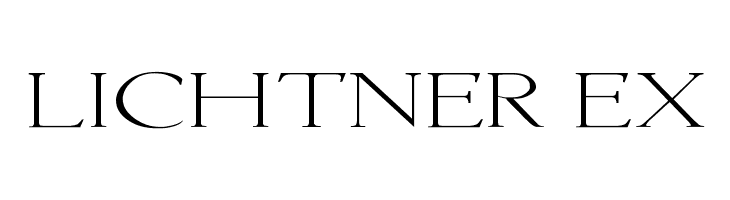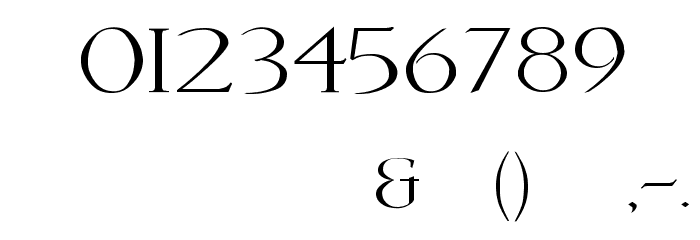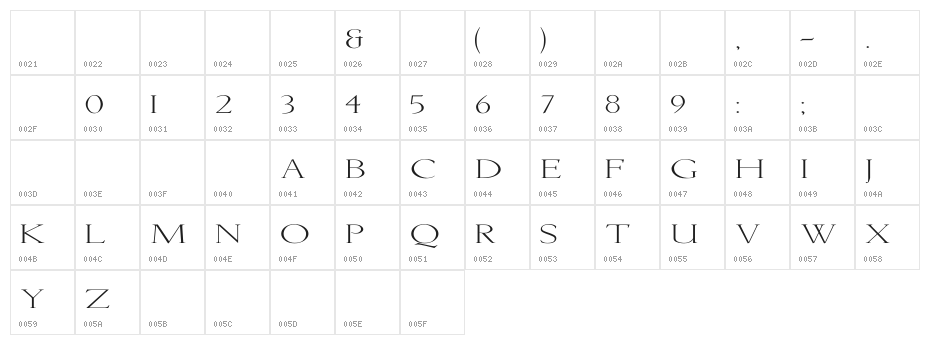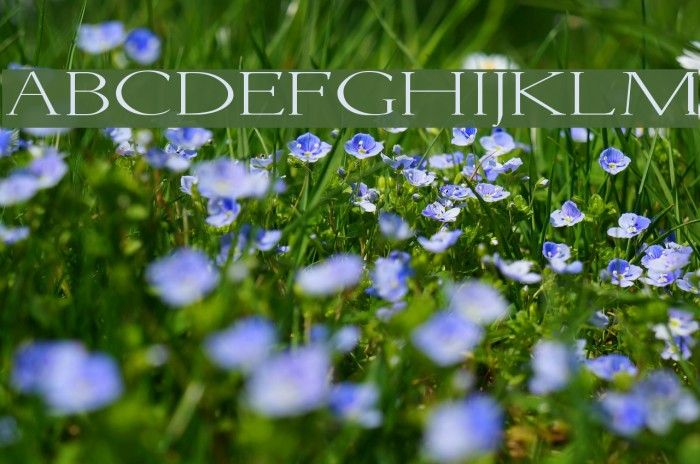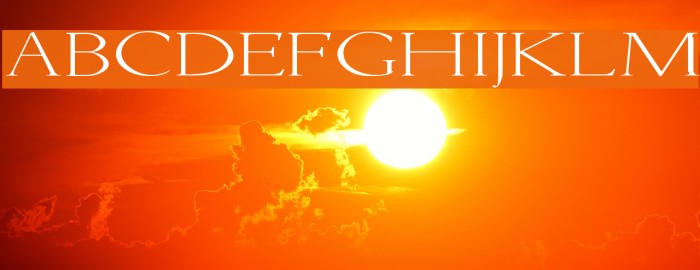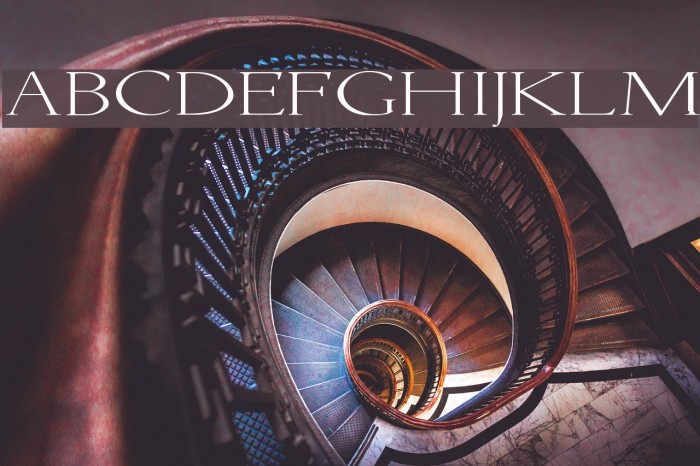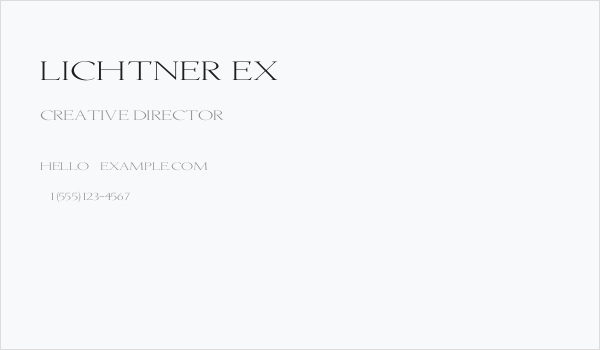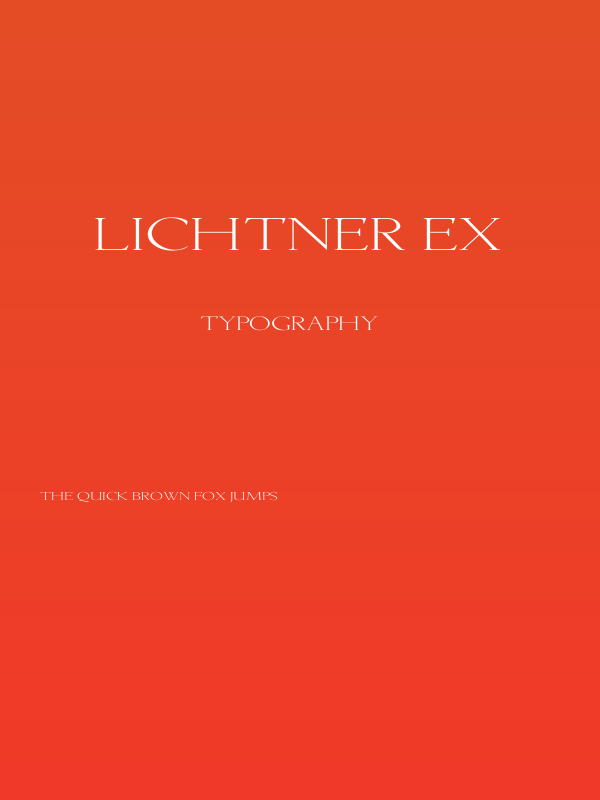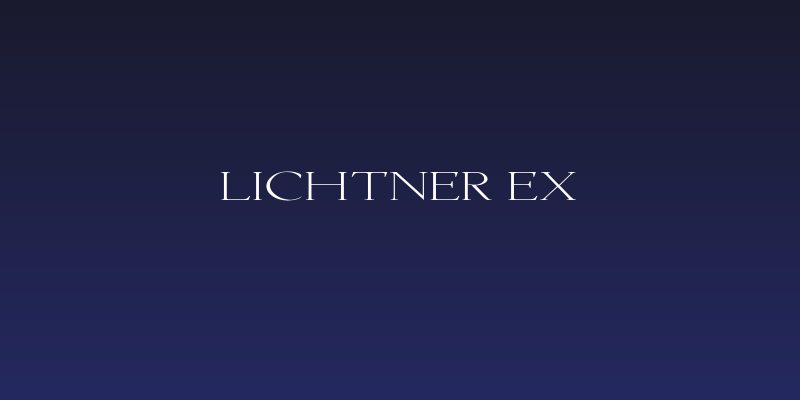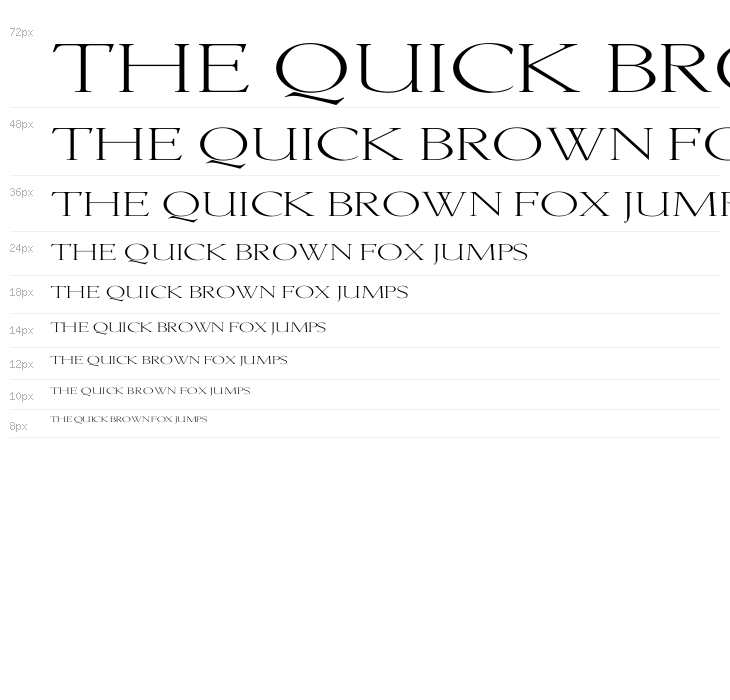
Lichtner Ex Font
Lichtner Ex Description
This font exhibits a refined and elegant serif style, characterized by its thin, elongated strokes and subtle curves. The uppercase letters are tall and stately, with a slight flair at the terminals, giving them a sophisticated appearance. The lowercase letters maintain a consistent height, with gentle curves that enhance readability. The numerals are distinct and well-proportioned, matching the overall aesthetic of the font. Special characters are thoughtfully designed, maintaining the elegance and balance seen throughout the alphabet. This font is ideal for projects that require a touch of class and sophistication.
| Use Case | Headlines, Logos, Editorial design |
| Proposed Projects | Ideal for luxury branding, wedding invitations, editorial design, and high-end product packaging. |